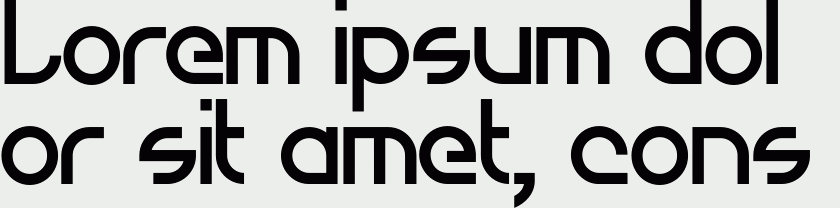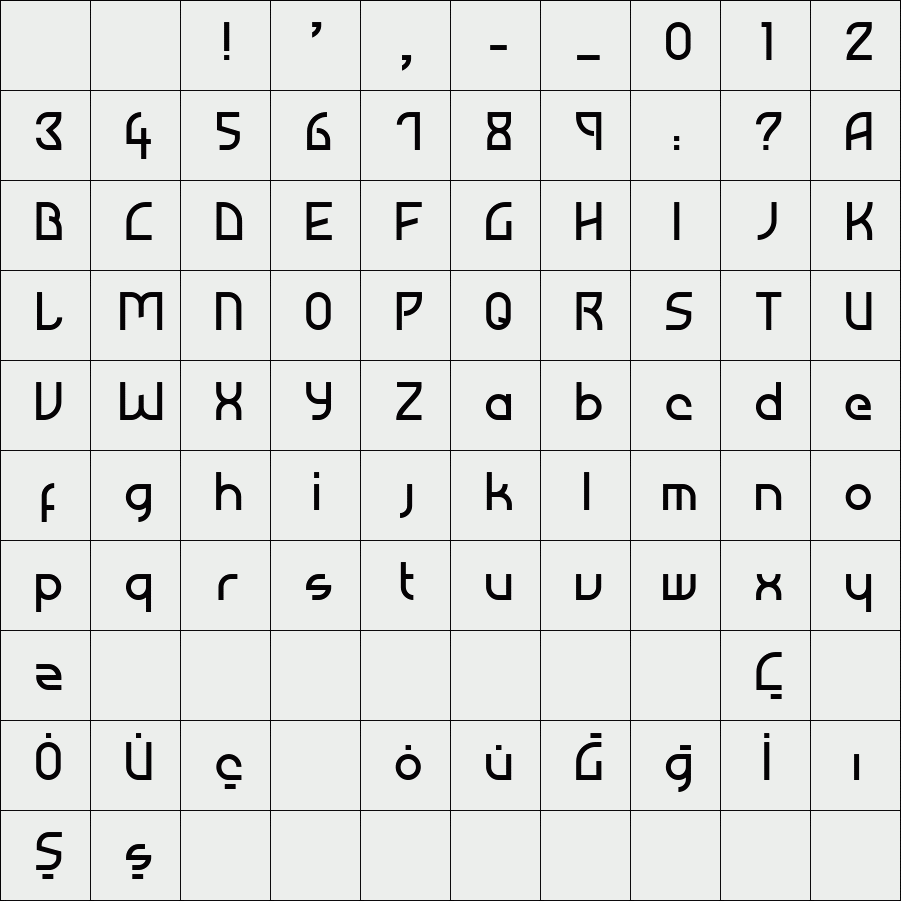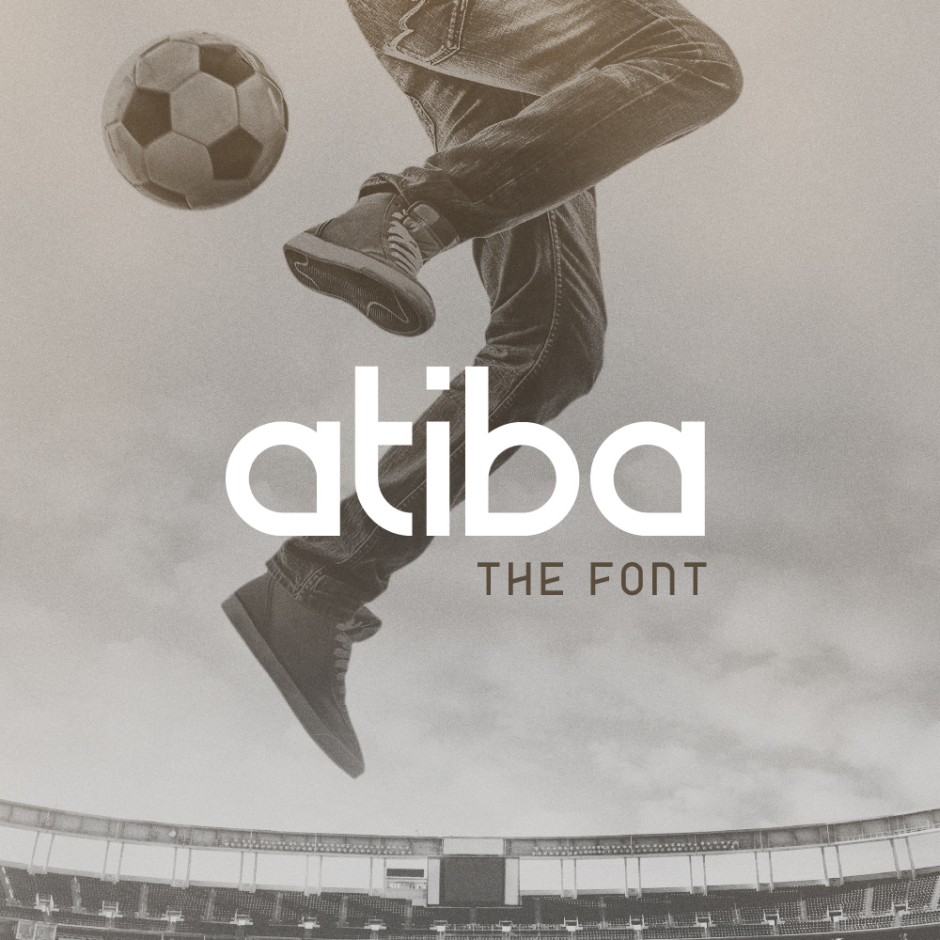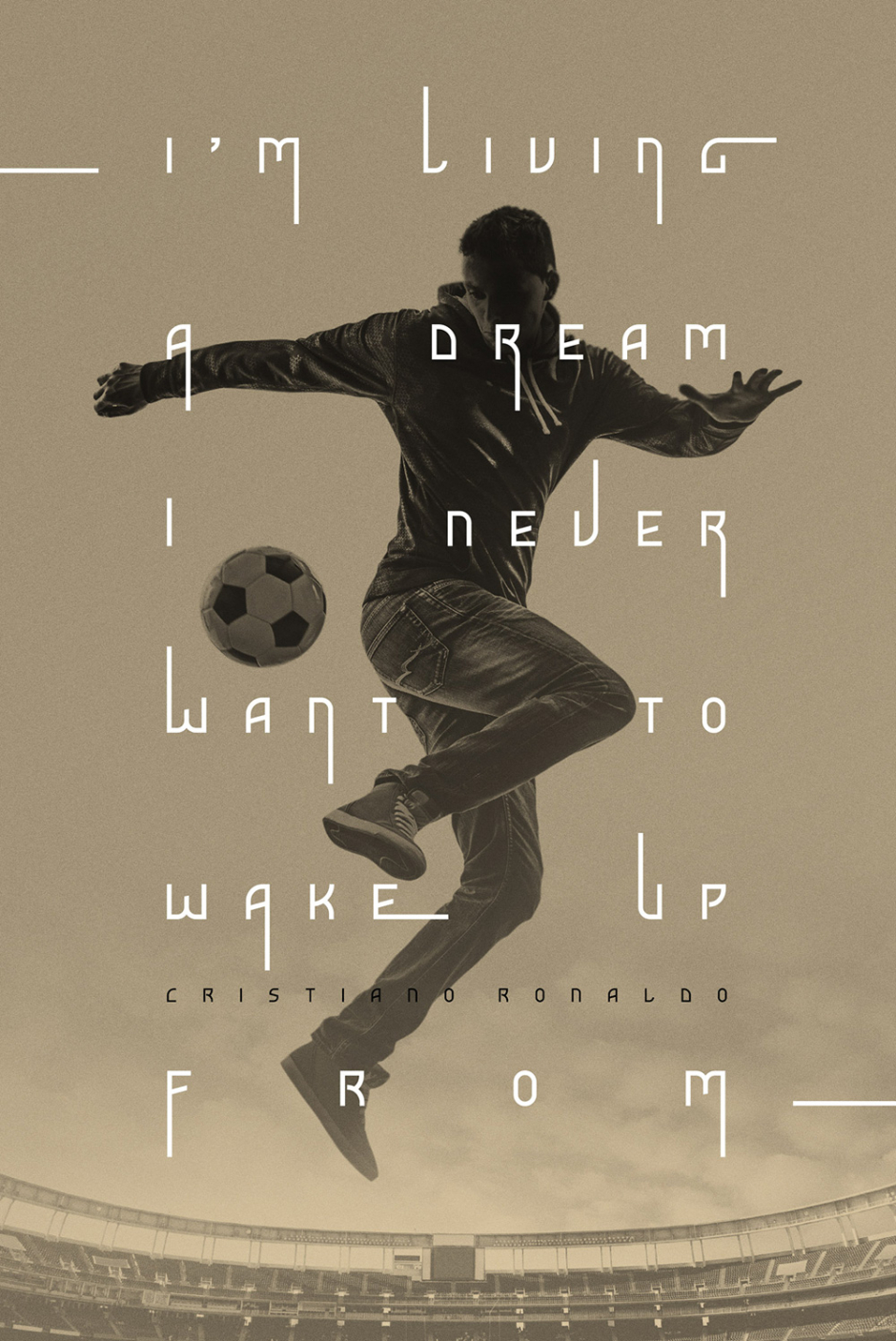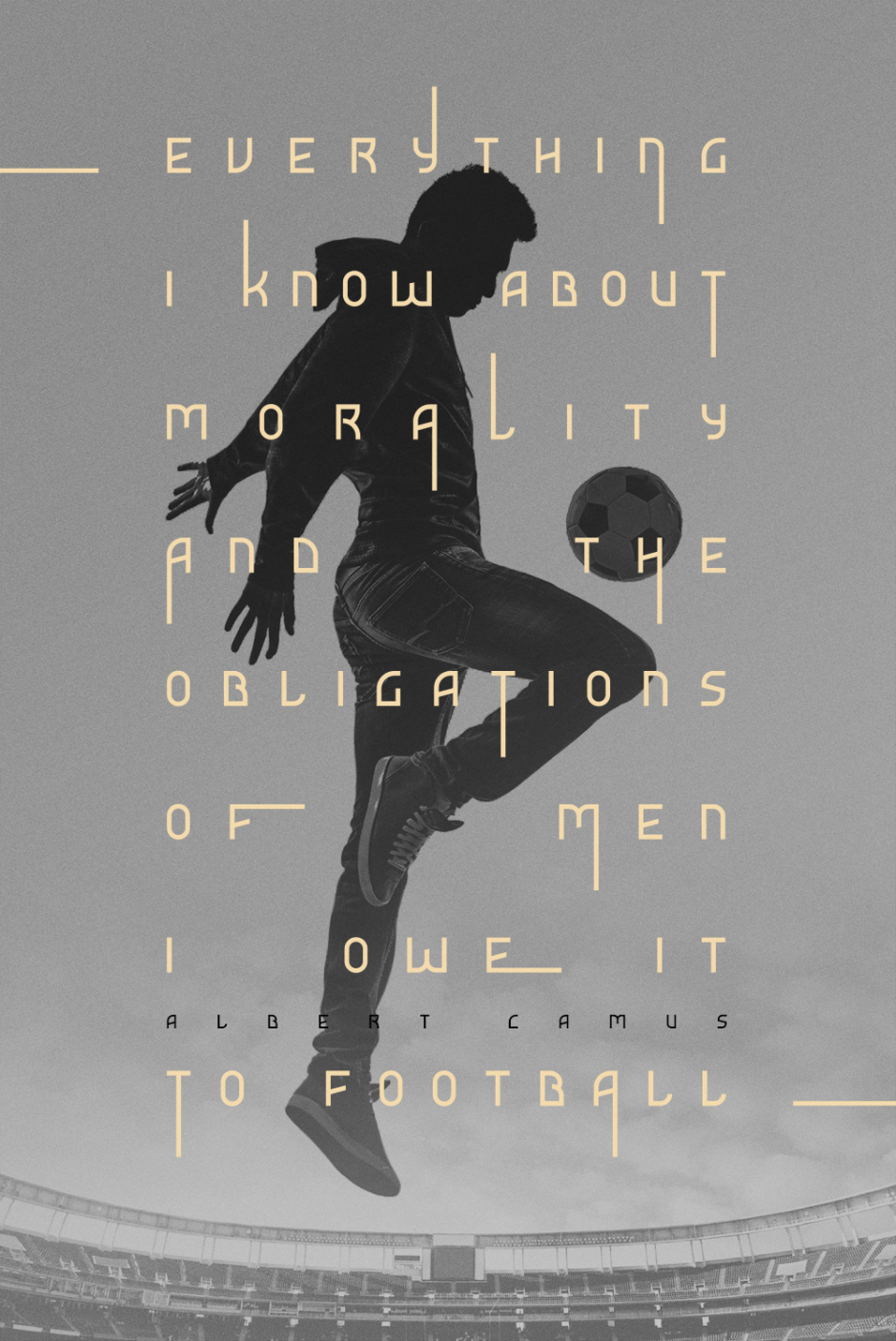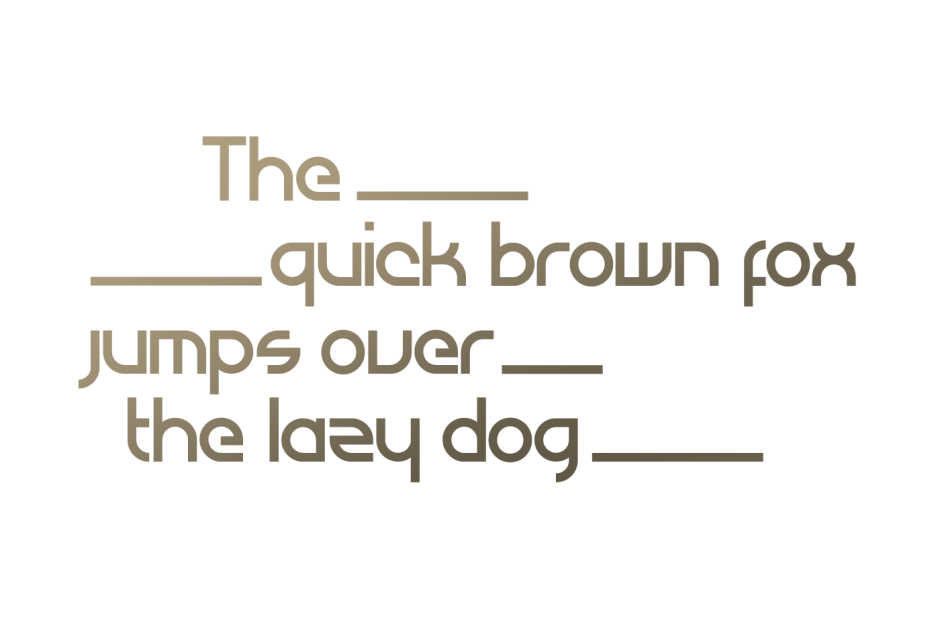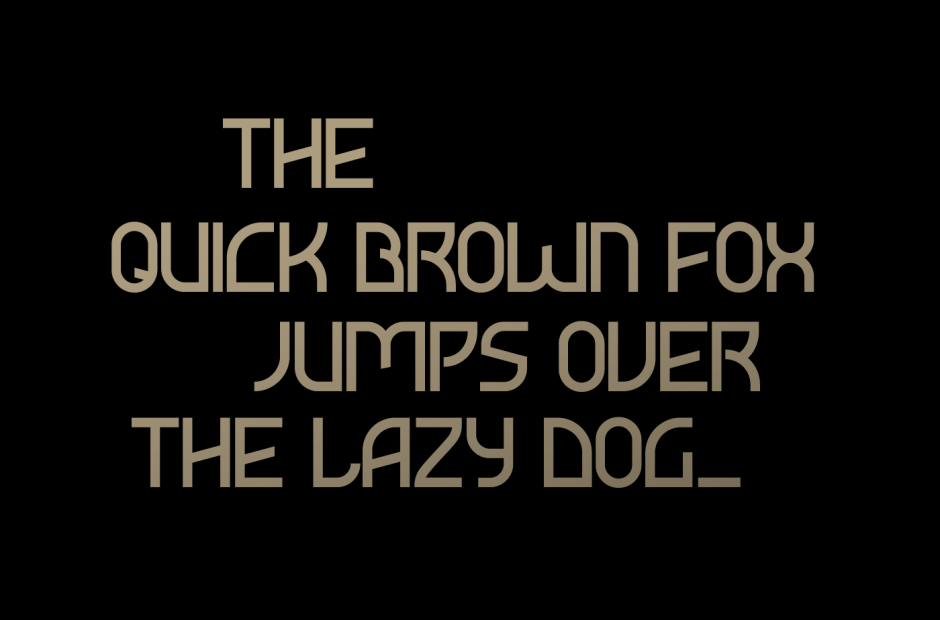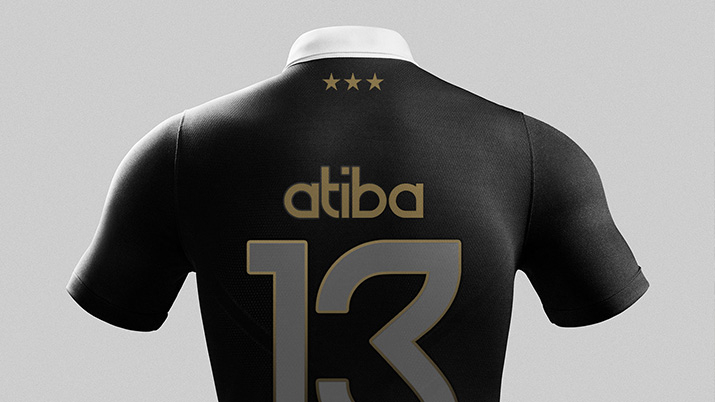
Atiba
Atiba is a font that aims to combine perfect geometric curves with solid straight lines to create a sportive, energetic and timeless look.
Designer: Ozan Karakoc